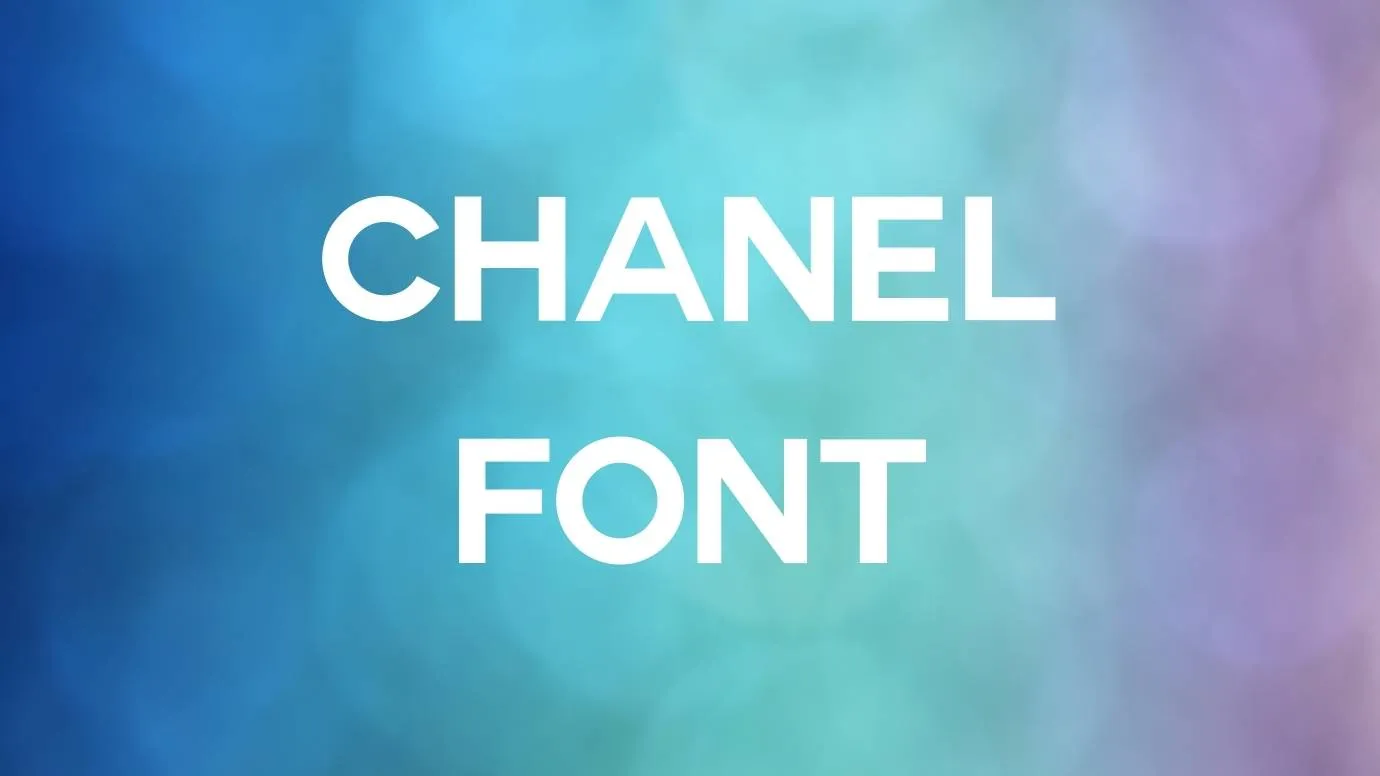
Chanel Font Family is a famous brand in France that was founded by Gabrielle Chanel in 1913. This is a fashion brand that was released in Paris. It has many products such as cosmetics products, perfume, jewelry, and a lot more.
The font that is used for the logo of this brand is known as couture font and it was designed by Chase Babb. This font has sans serif characters and it is a logotype font.